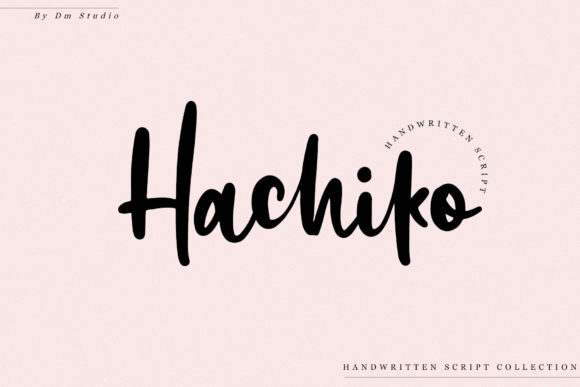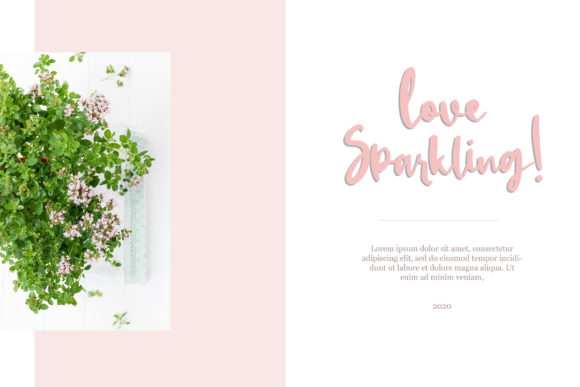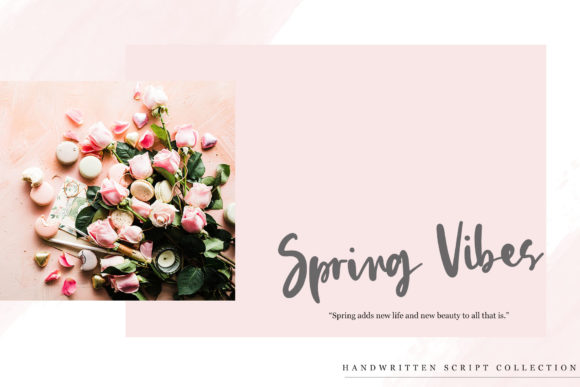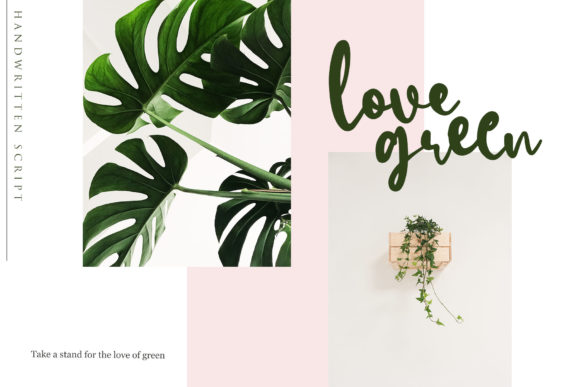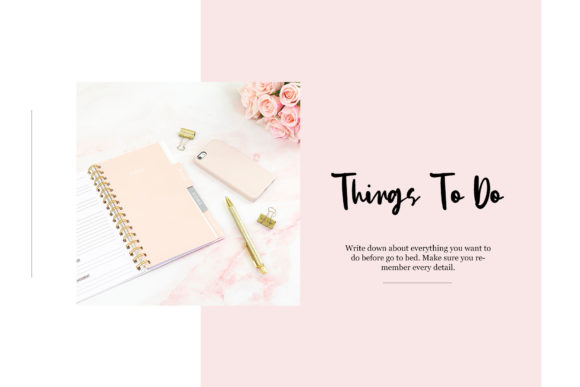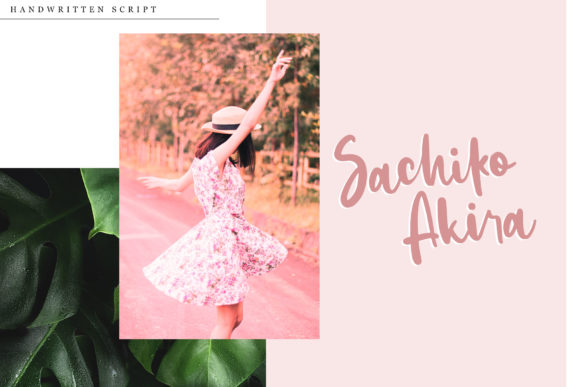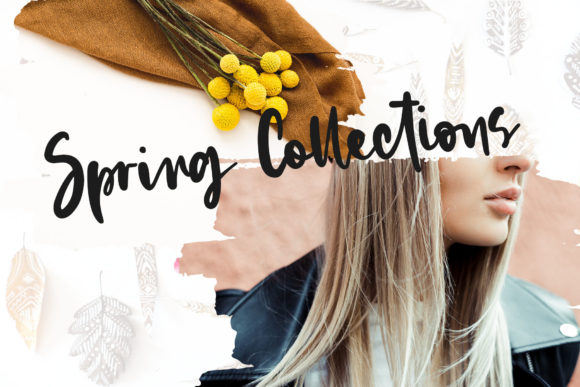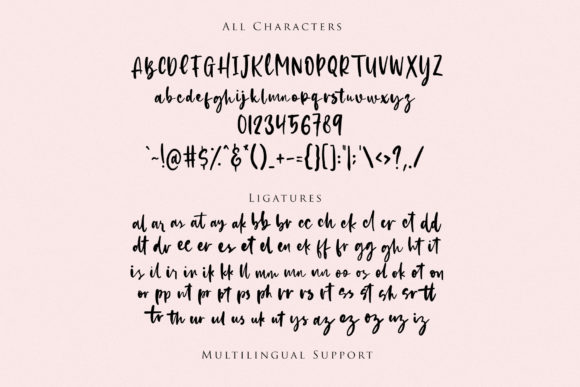
Hachiko Font
About Hachiko Font
Hachiko is a gorgeous casual handwritten font! Comes with a quirky style and 74 ligatures to make your design more delightful!